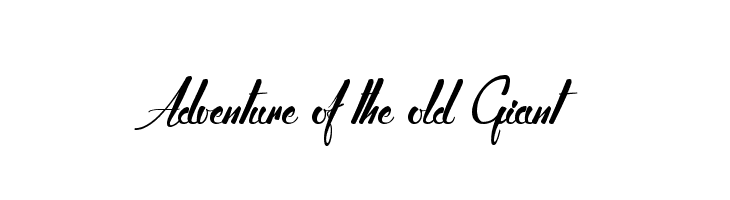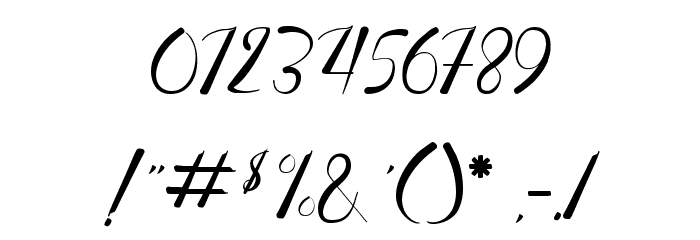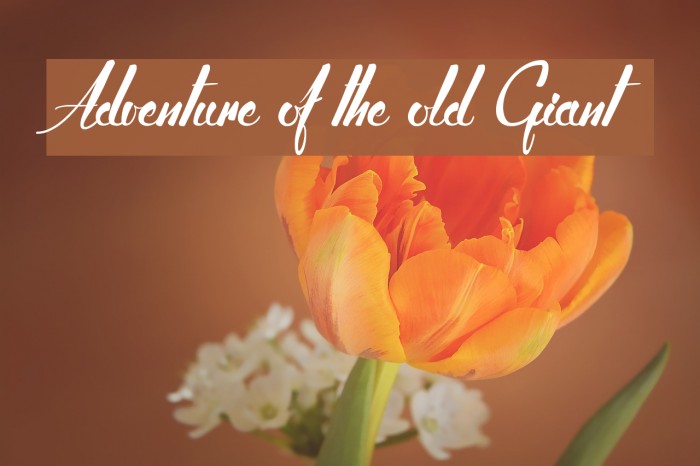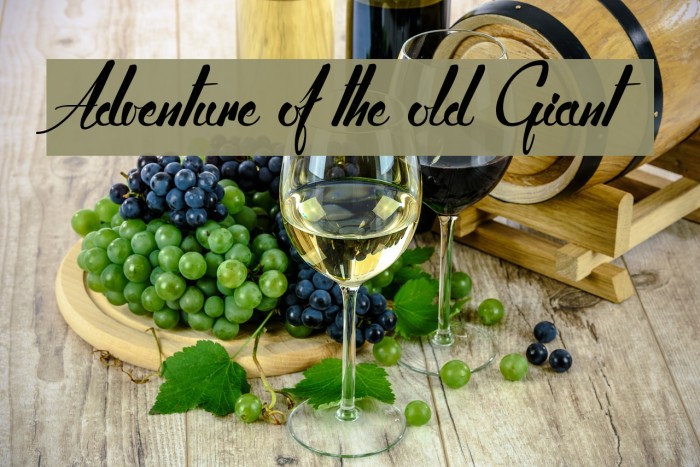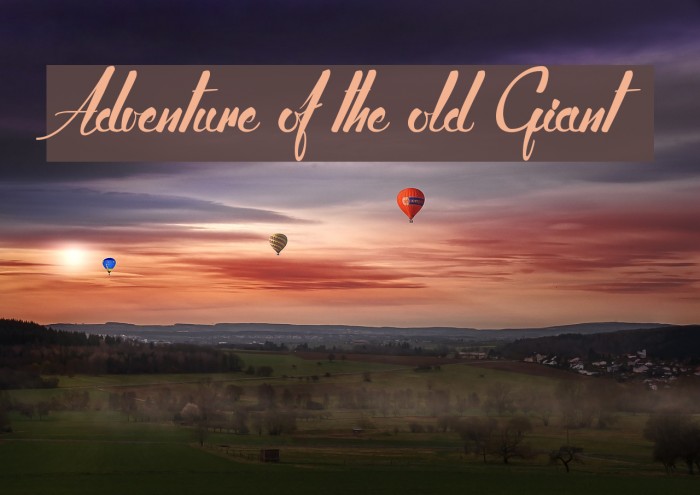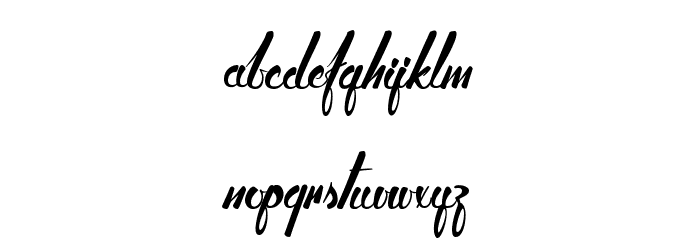
Adventure of the old Giant Font
Adventure of the old Giant Description
This font features an elegant and flowing script style, characterized by its smooth, cursive strokes and a slightly slanted orientation. The uppercase letters are bold and dramatic, with sweeping curves and flourishes that give a sense of movement and grace. The lowercase letters maintain a consistent style, with a more compact and connected appearance, enhancing the script's fluidity. The numerals are distinct yet harmonious with the overall design, providing a clear and stylish representation. Special characters are thoughtfully integrated, maintaining the font's cohesive aesthetic. This font exudes a sense of sophistication and is perfect for projects that require a touch of elegance and class.
An elegant, flowing script font with dramatic curves and a sophisticated style from Uncategorized fonts.
- Proposed Projects: Ideal for wedding invitations, elegant branding, luxury product packaging, and sophisticated event posters.